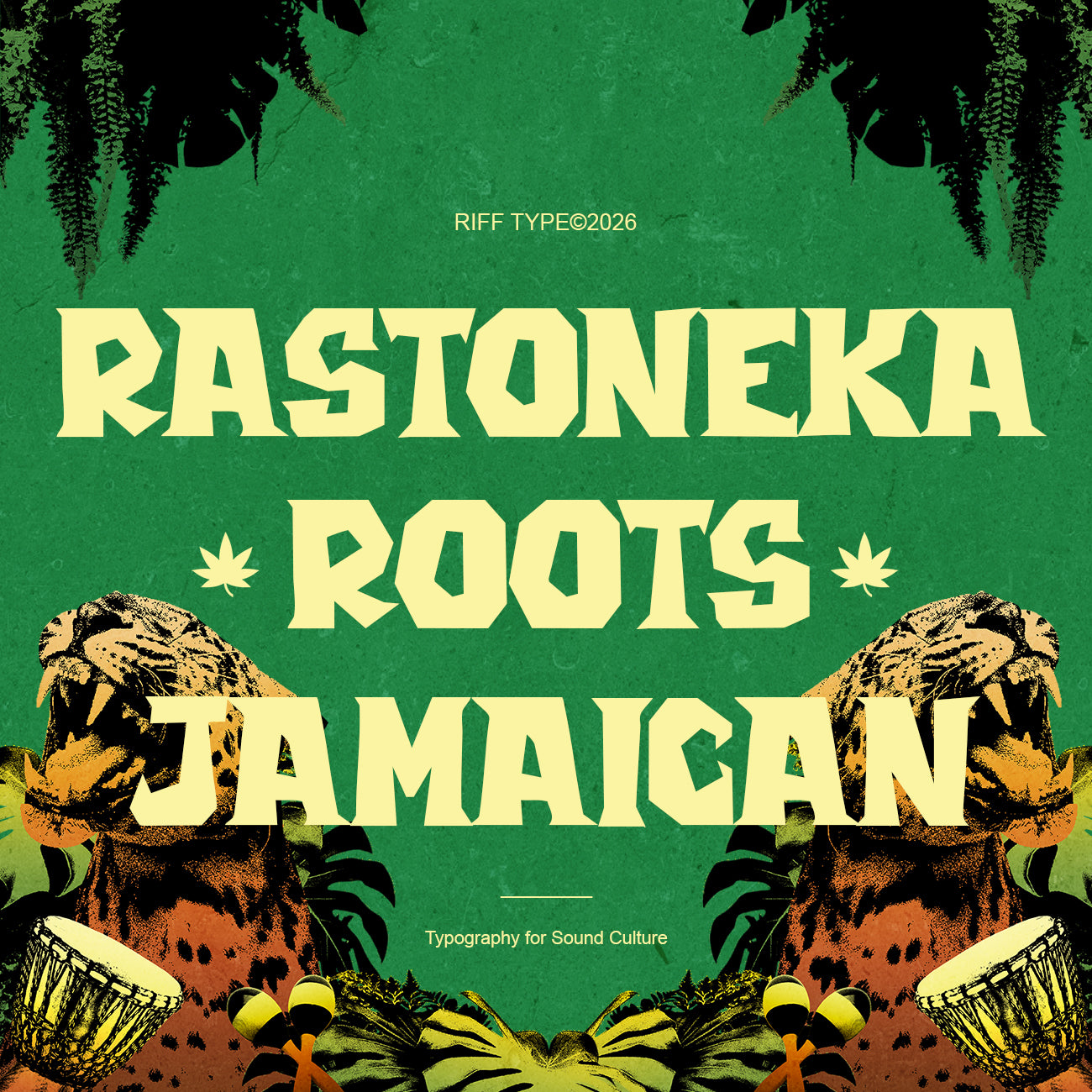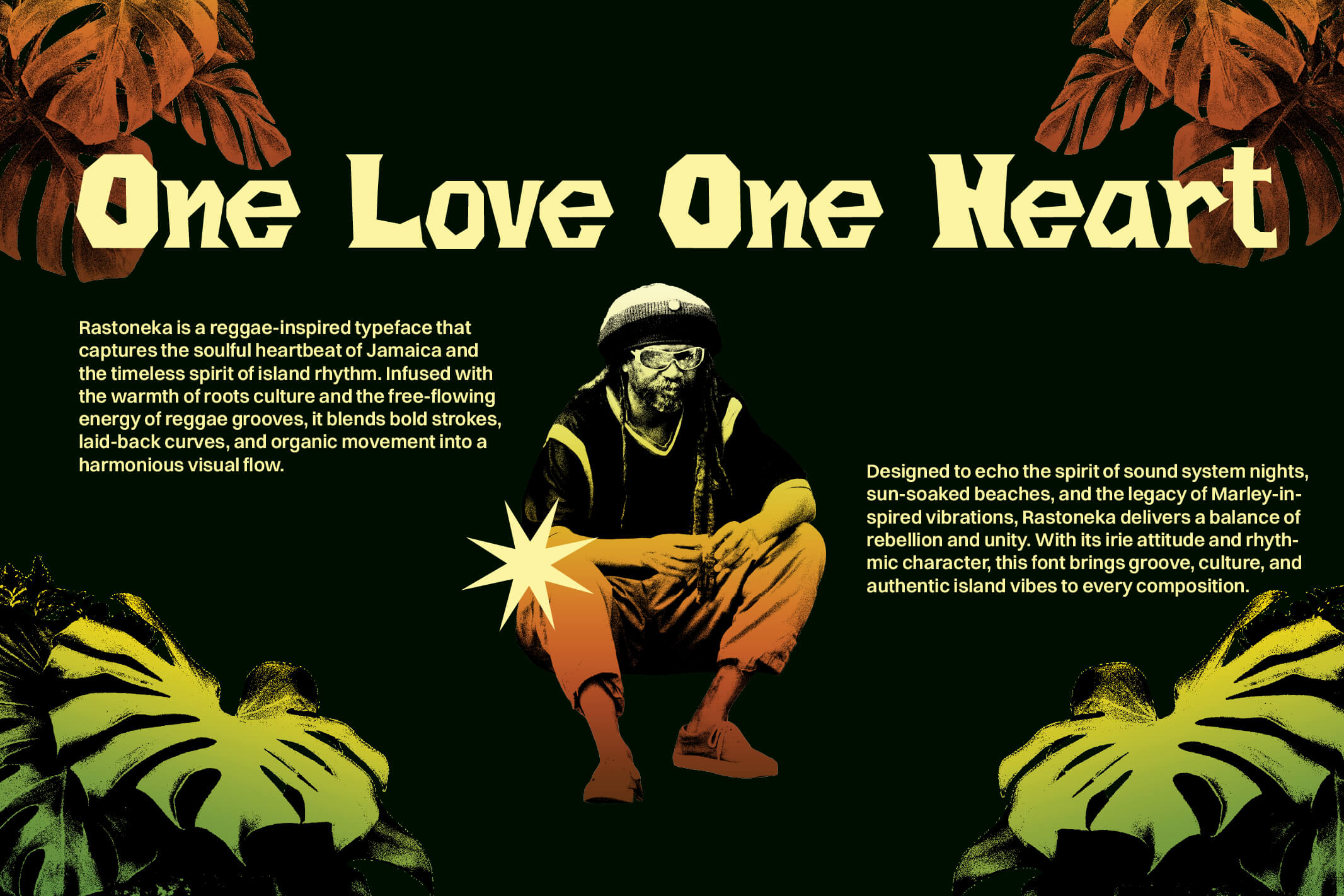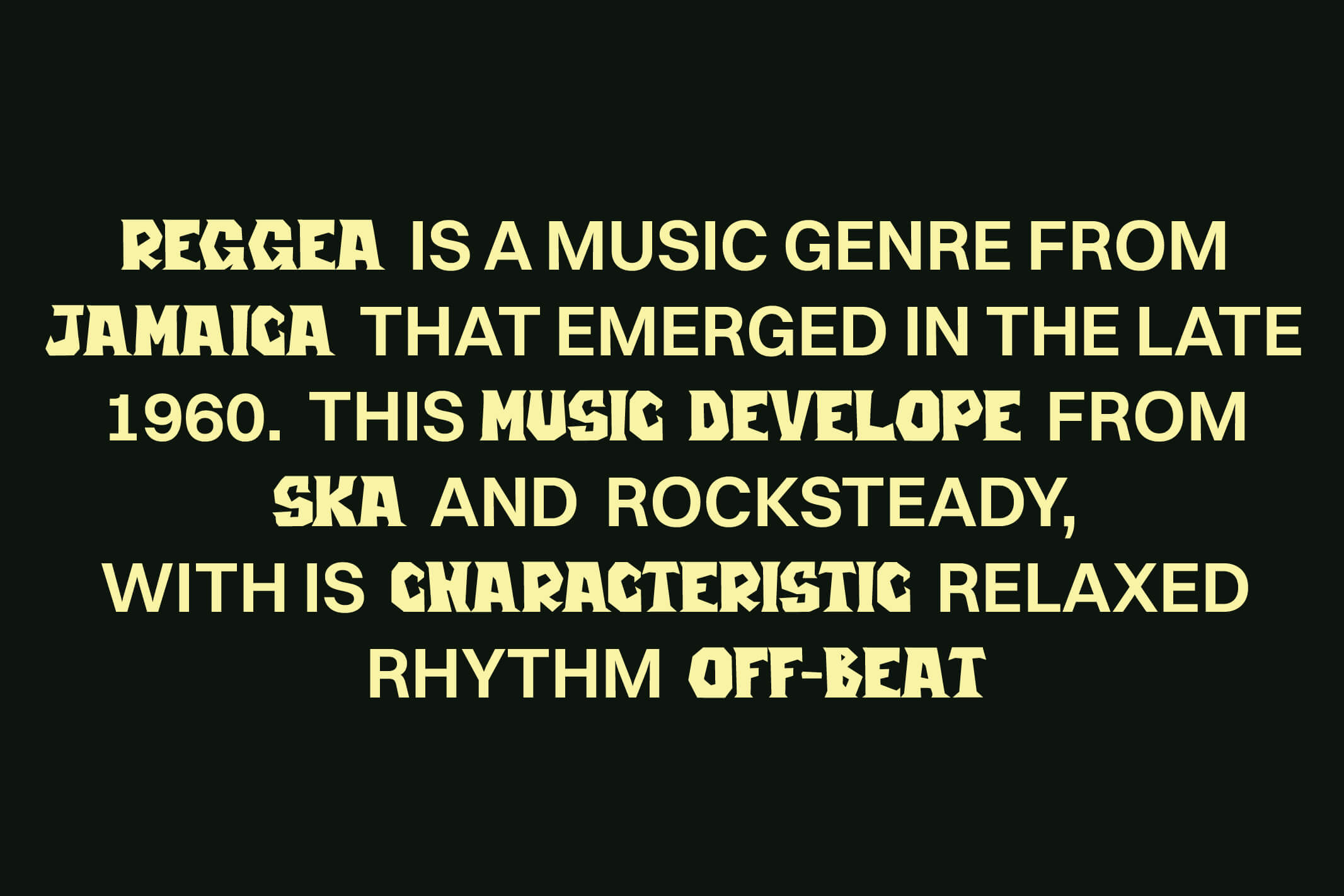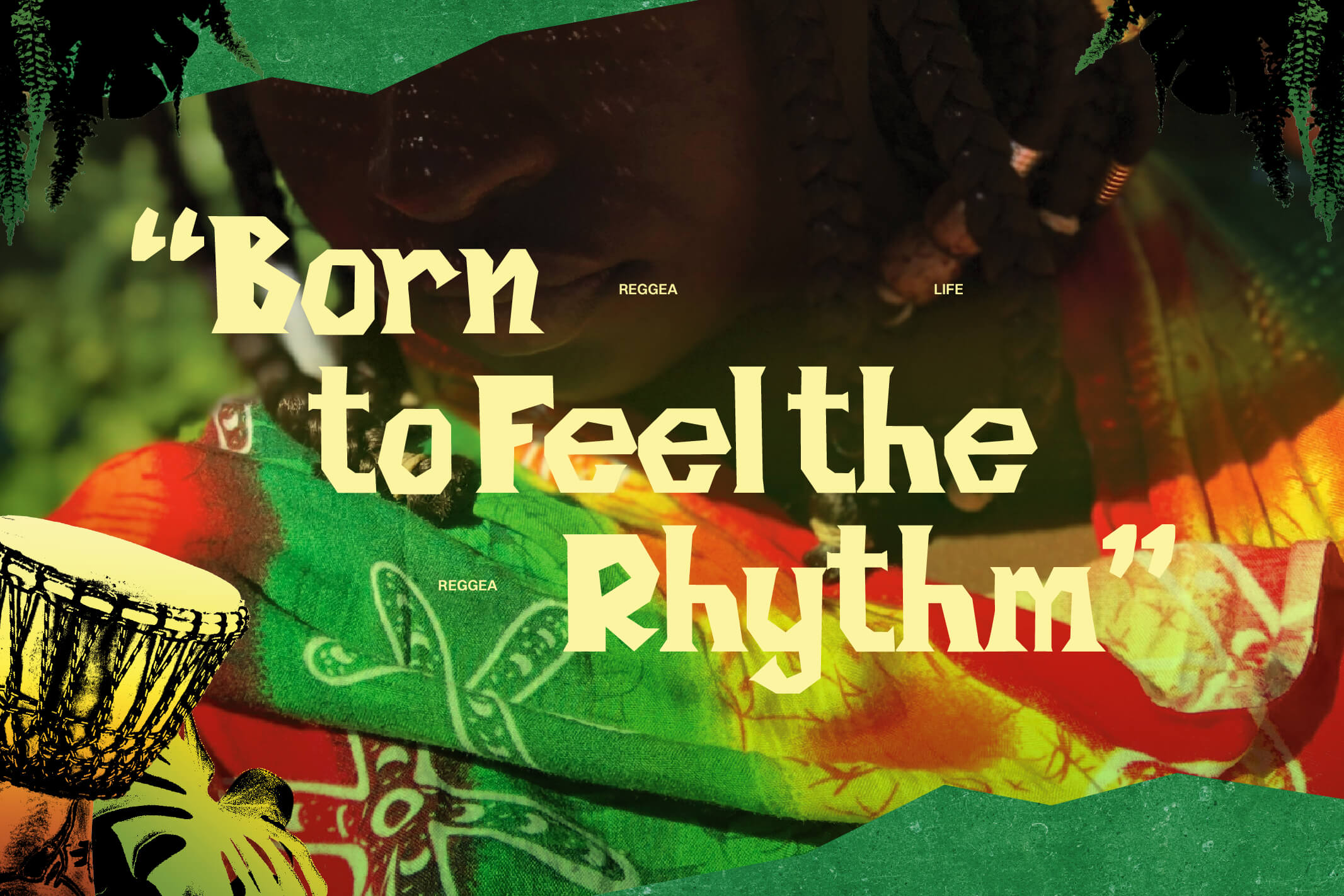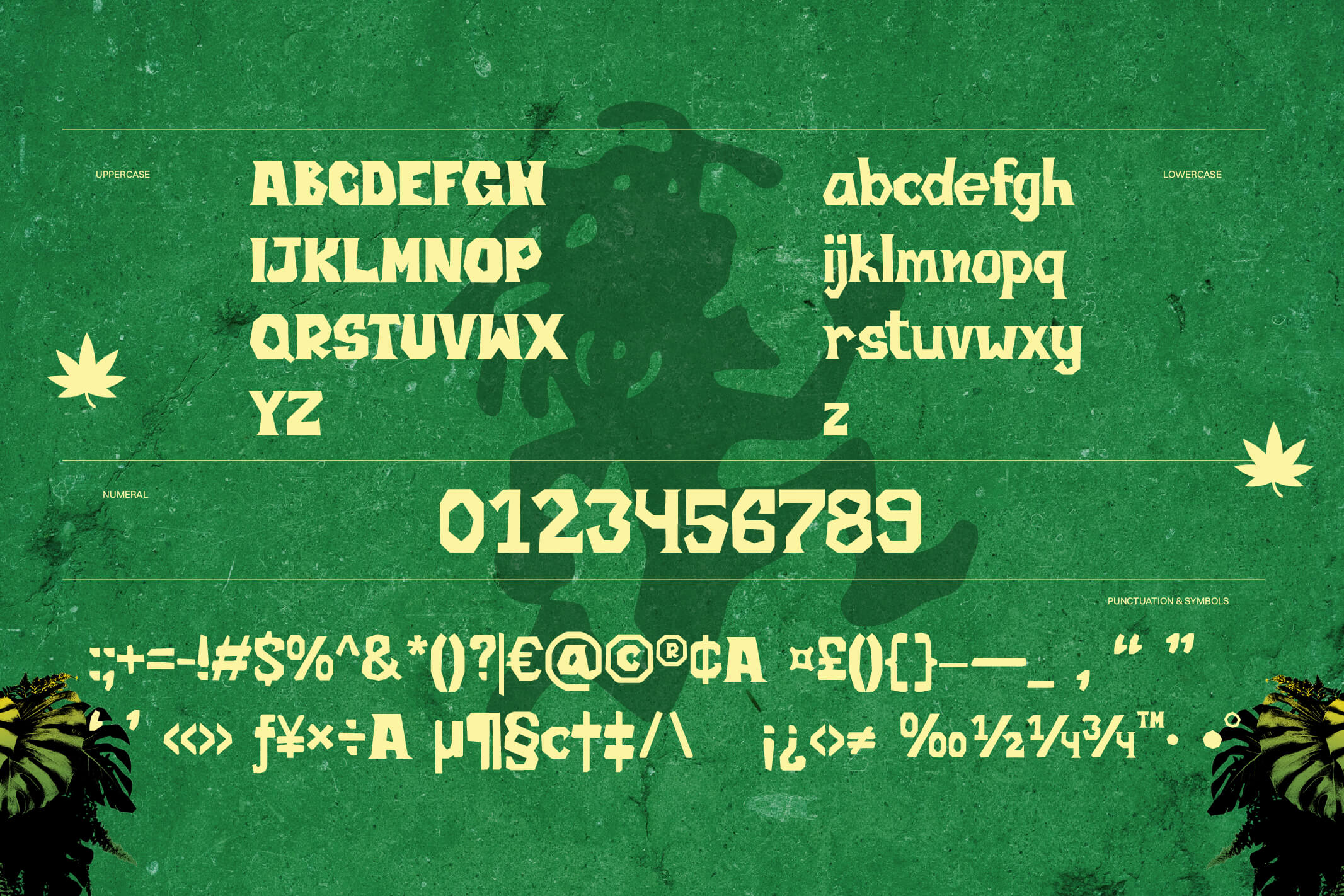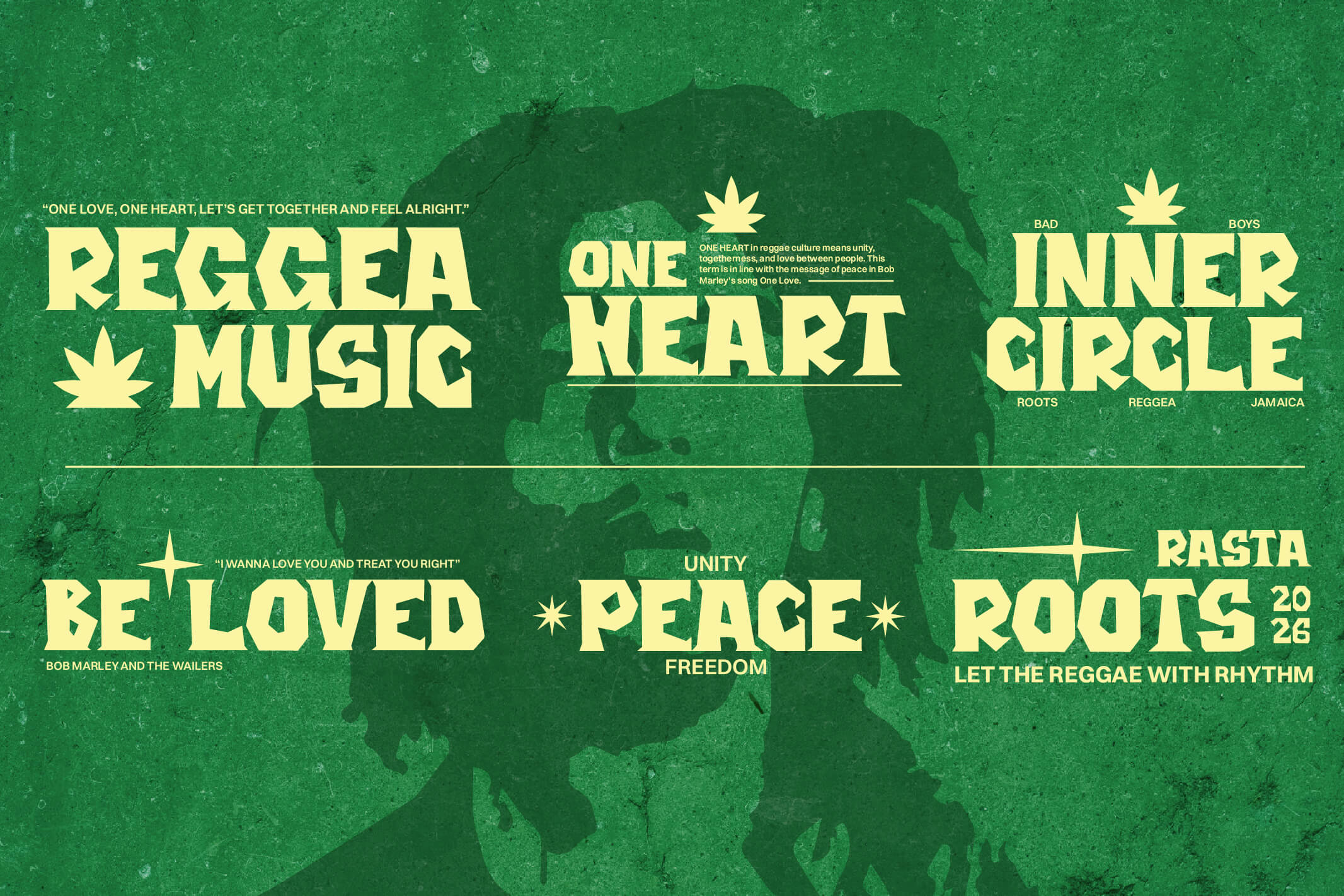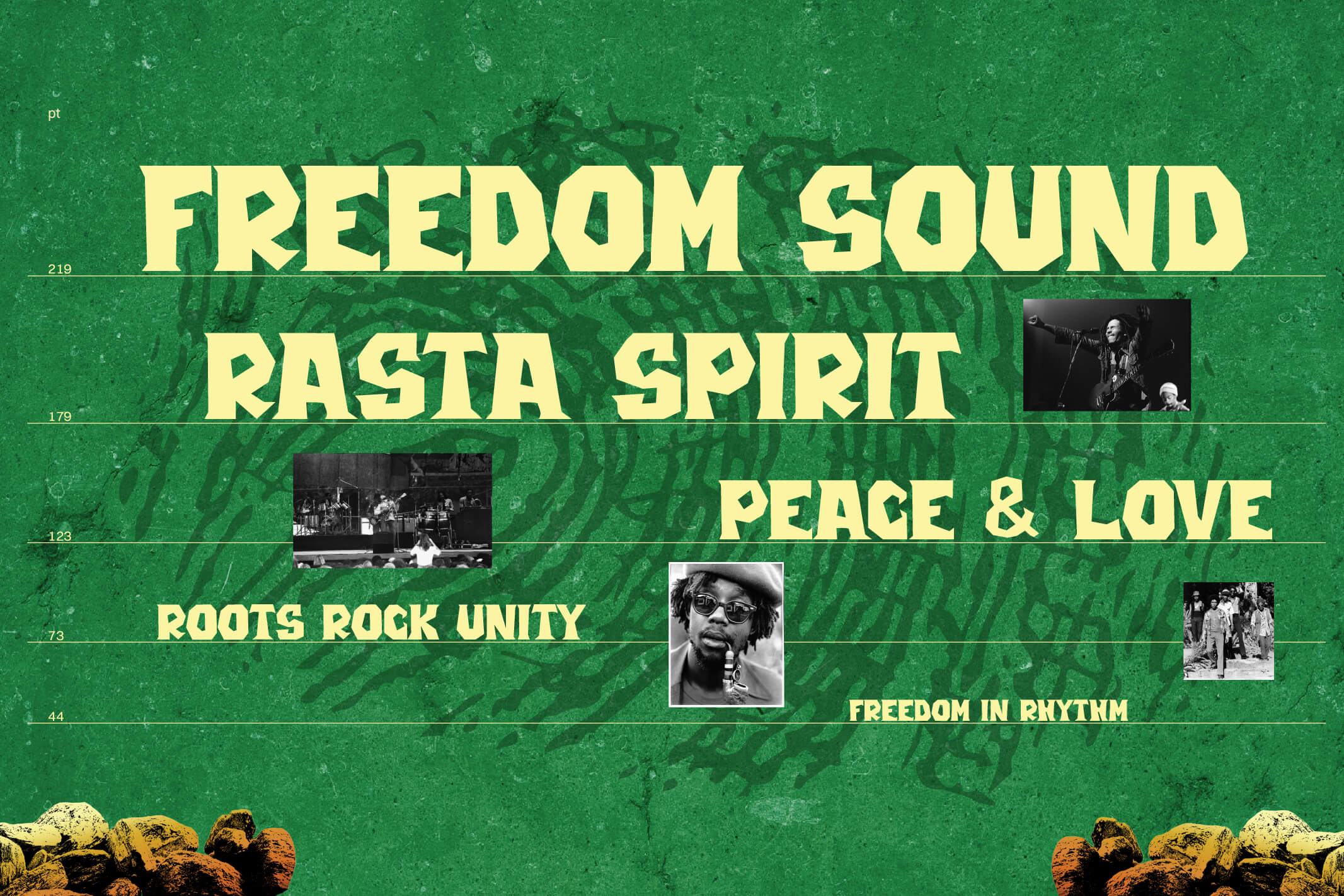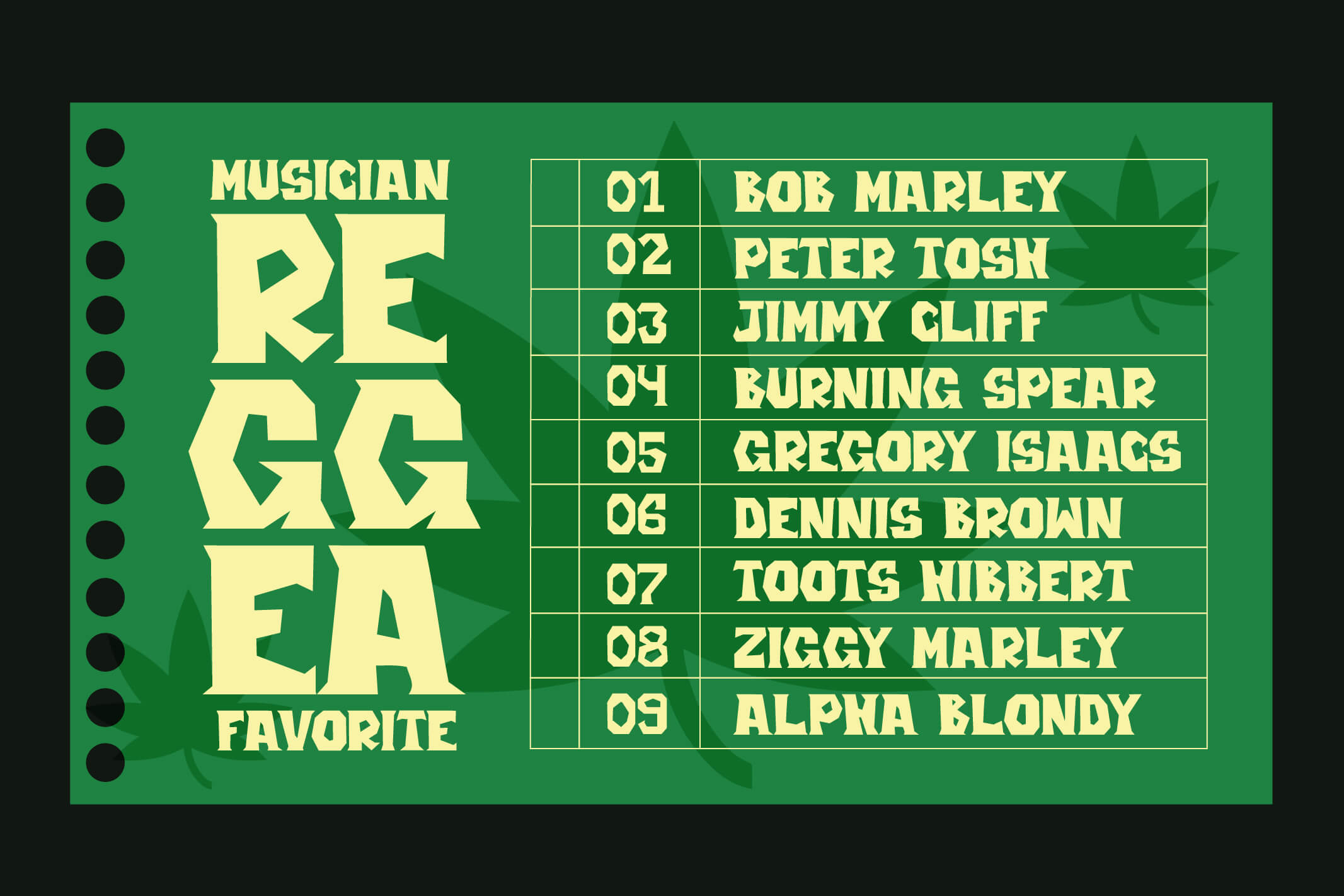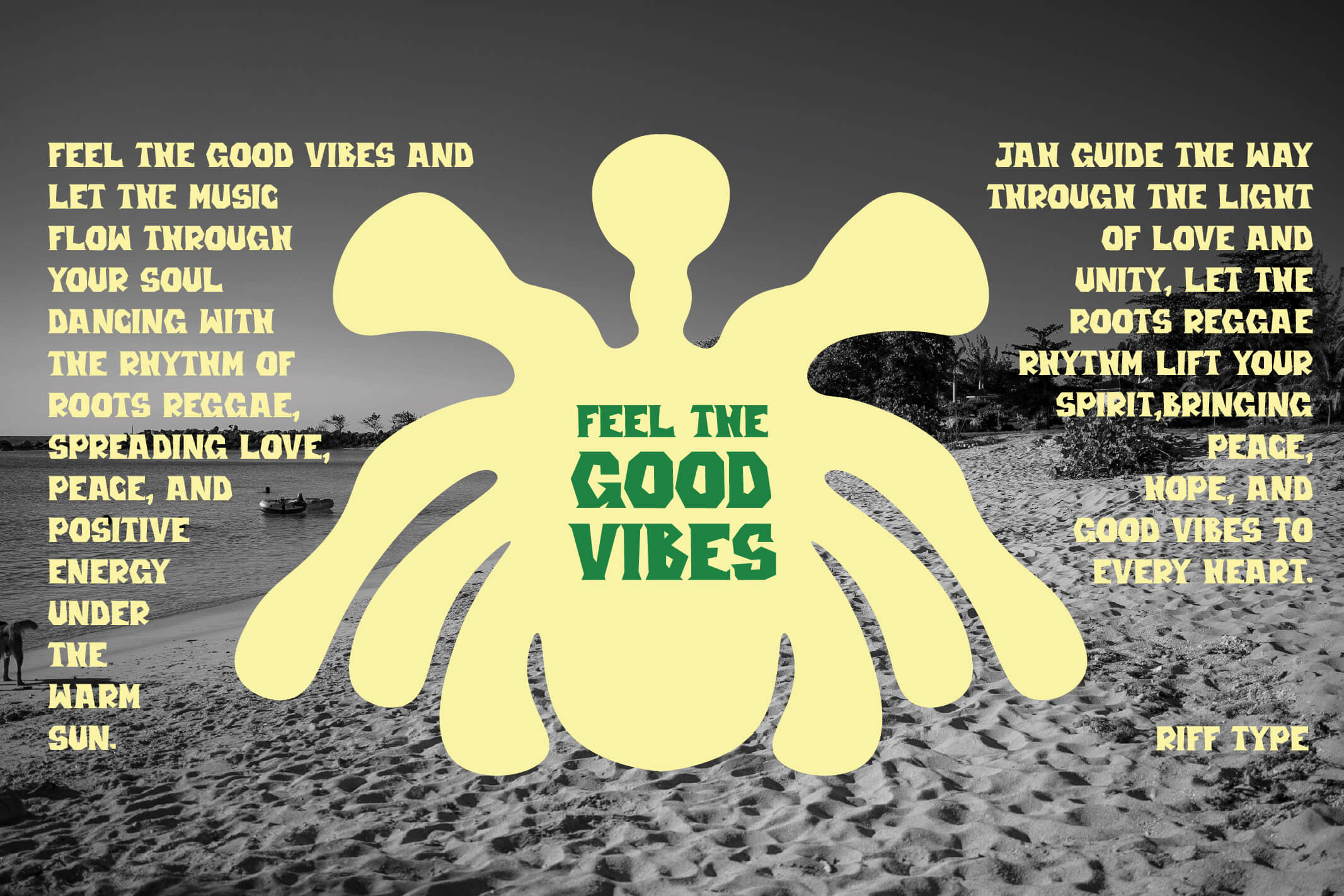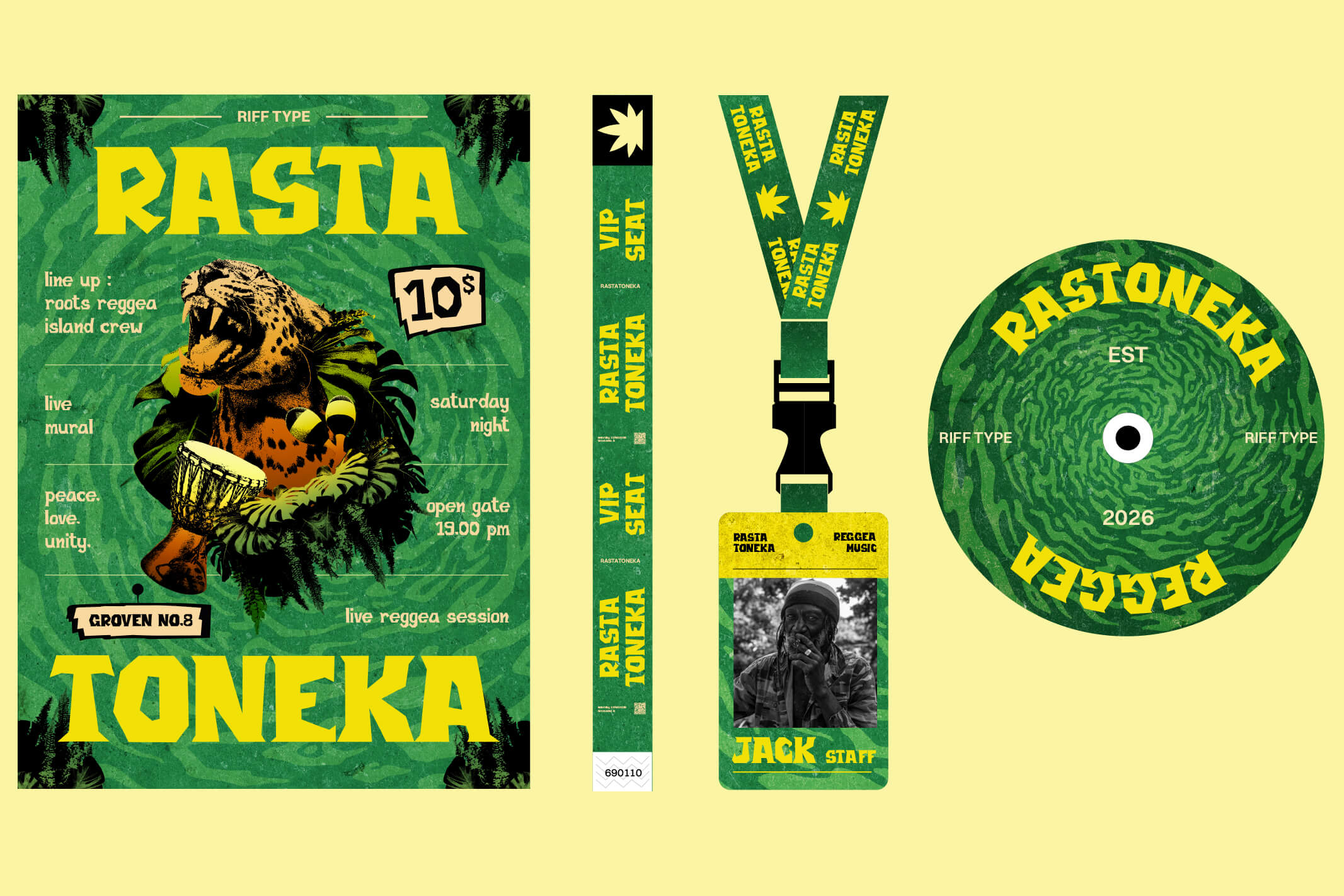
Rastoneka - Jamaican Display Font
Rastoneka - A bold, high-impact display typeface inspired by Jamaican roots culture and reggae aesthetics. Its strong, geometric letterforms and slightly rough edges give a hand-crafted, organic feel while maintaining readability and visual power.
Adds personality, fun, and authenticity to your designs.
Rastoneka is a bold display font inspired by Jamaican roots culture and reggae aesthetics, featuring strong geometric letterforms with slightly rough edges for a hand-crafted appearance. The font package includes TTF, OTF, WOFF, and WOFF2 files.